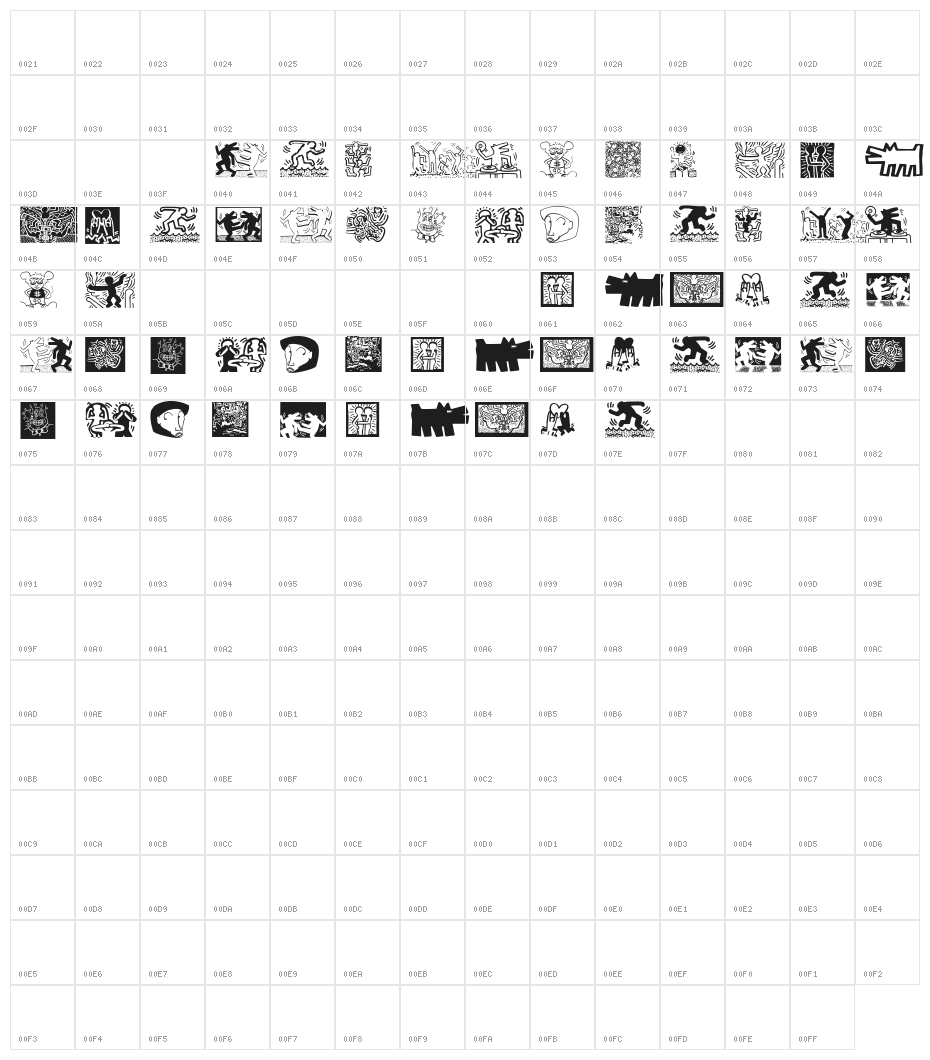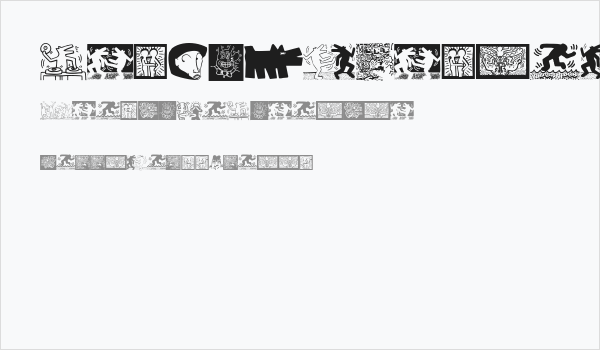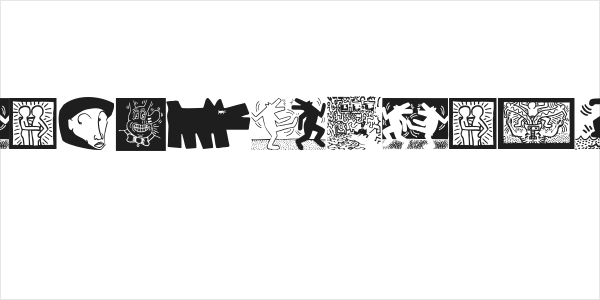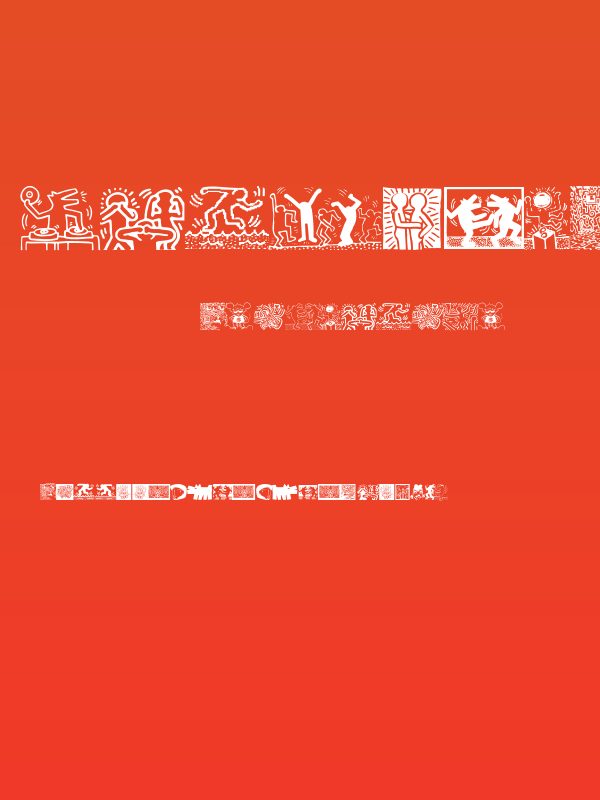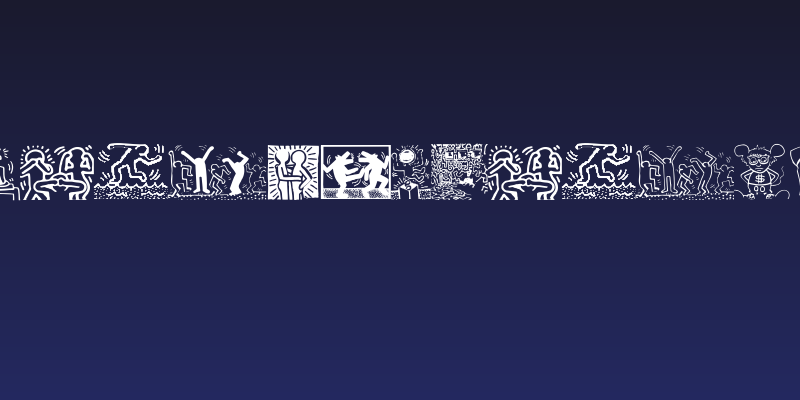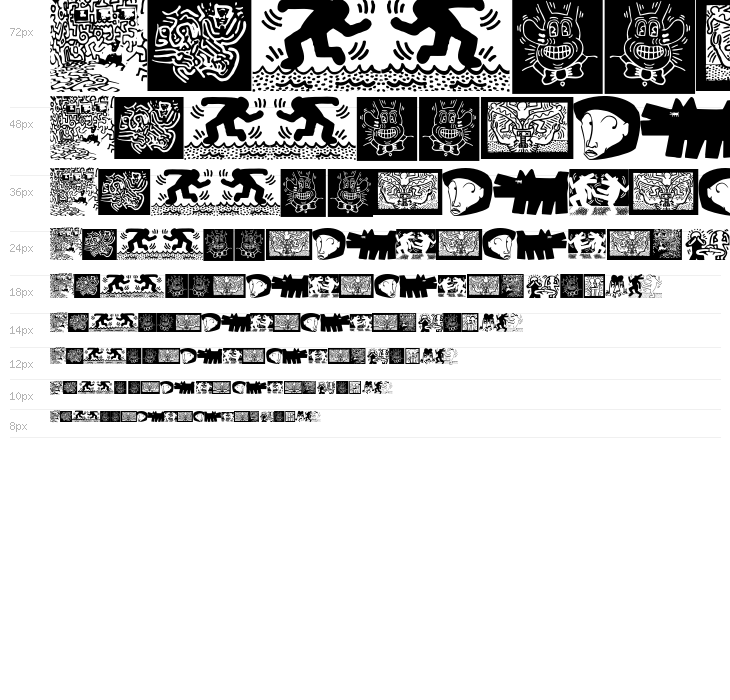
DrawingTraces Font
DrawingTraces Description
This is not a traditional font but rather a collection of artistic symbols and illustrations. Each character is represented by a unique drawing, featuring bold lines and dynamic figures. The style is reminiscent of street art, with a playful and energetic vibe. The characters are highly stylized, with a focus on movement and expression. The imagery includes abstract human figures, animals, and other whimsical designs, creating a vibrant and lively visual language.
| Use Case | Logos, Posters, Artistic Designs |
| Proposed Projects | Ideal for creative projects such as posters, album covers, or any design requiring a unique and artistic touch. Suitable for branding that seeks to convey energy and creativity. |